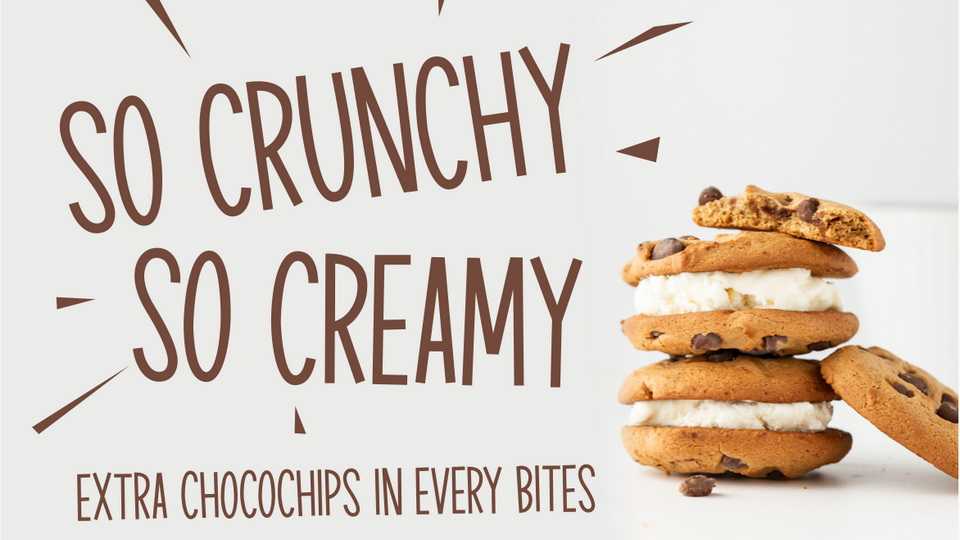
Download Trampoline font, an all caps display typeface with slight variation between uppercase and lowercase, with playful feel but with clear read-ability.